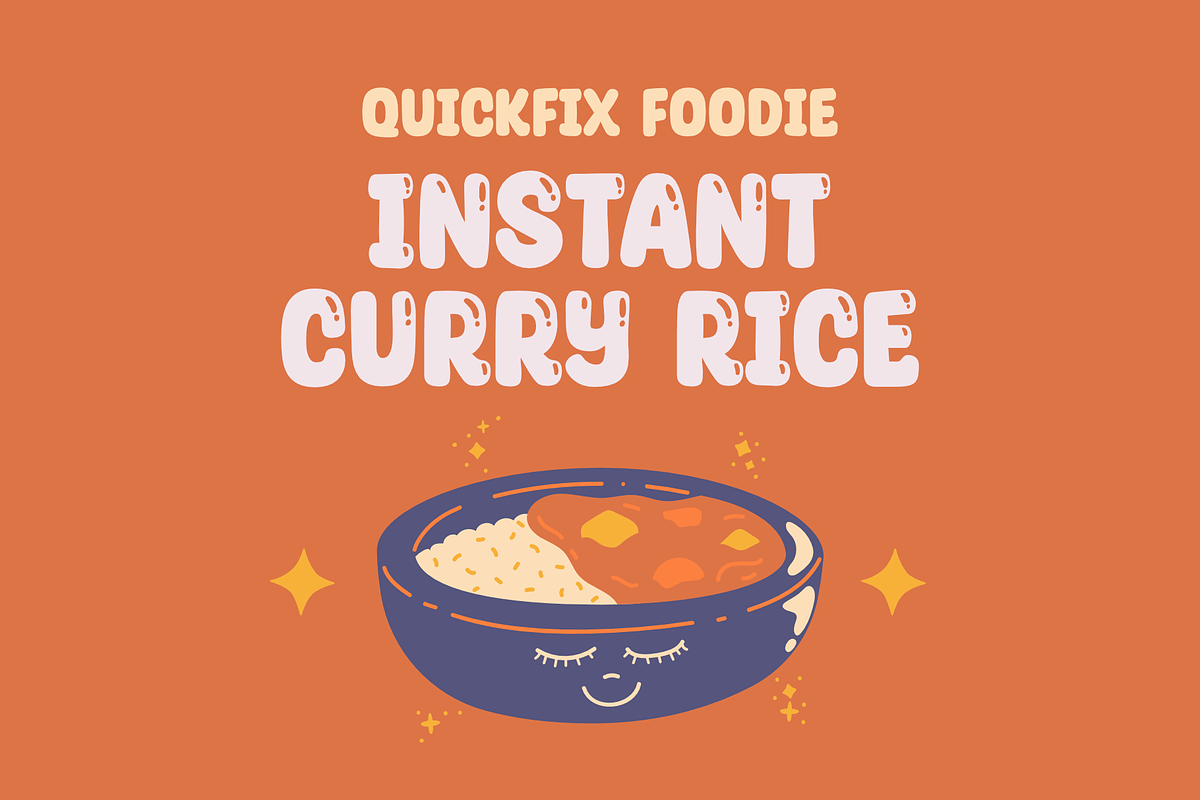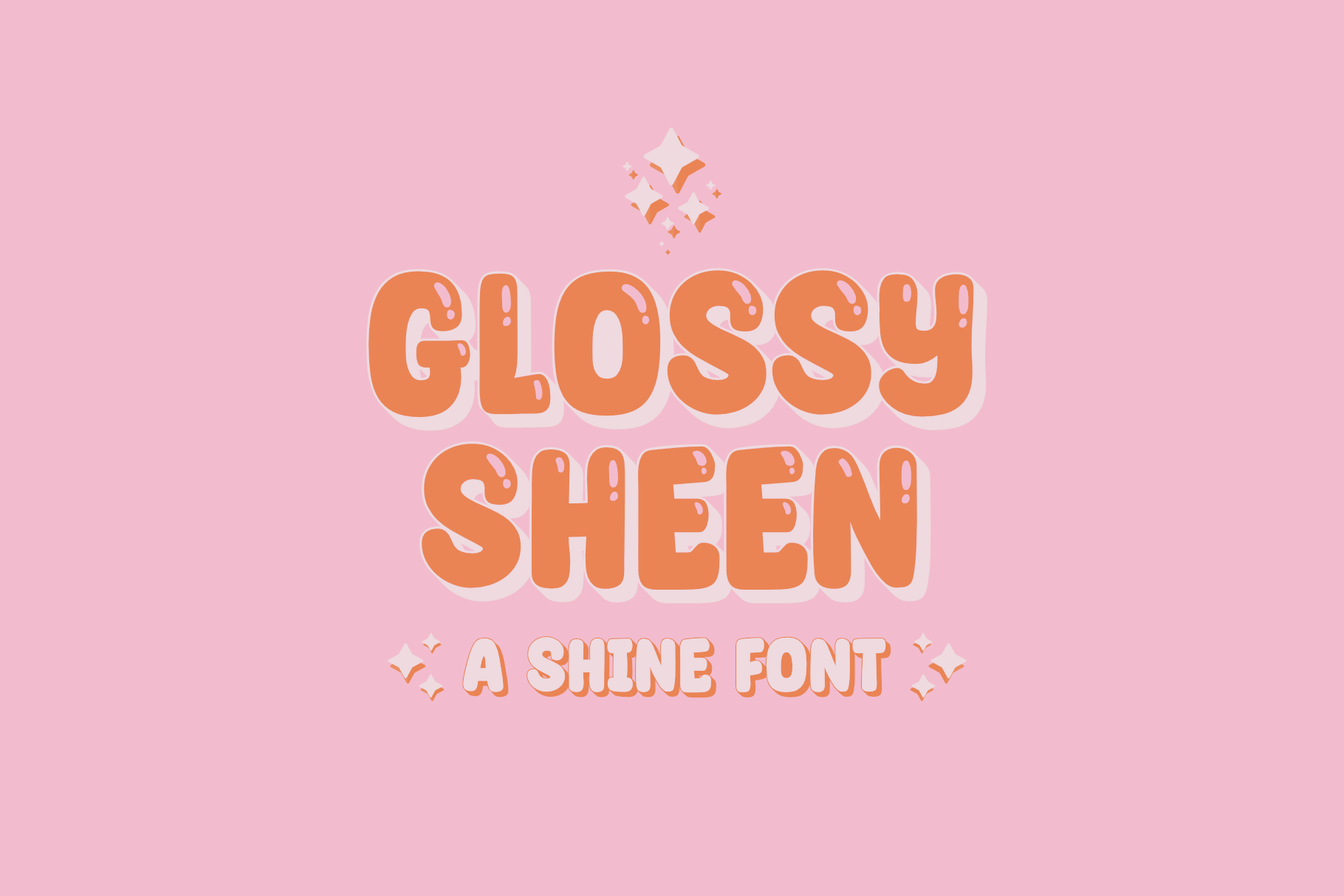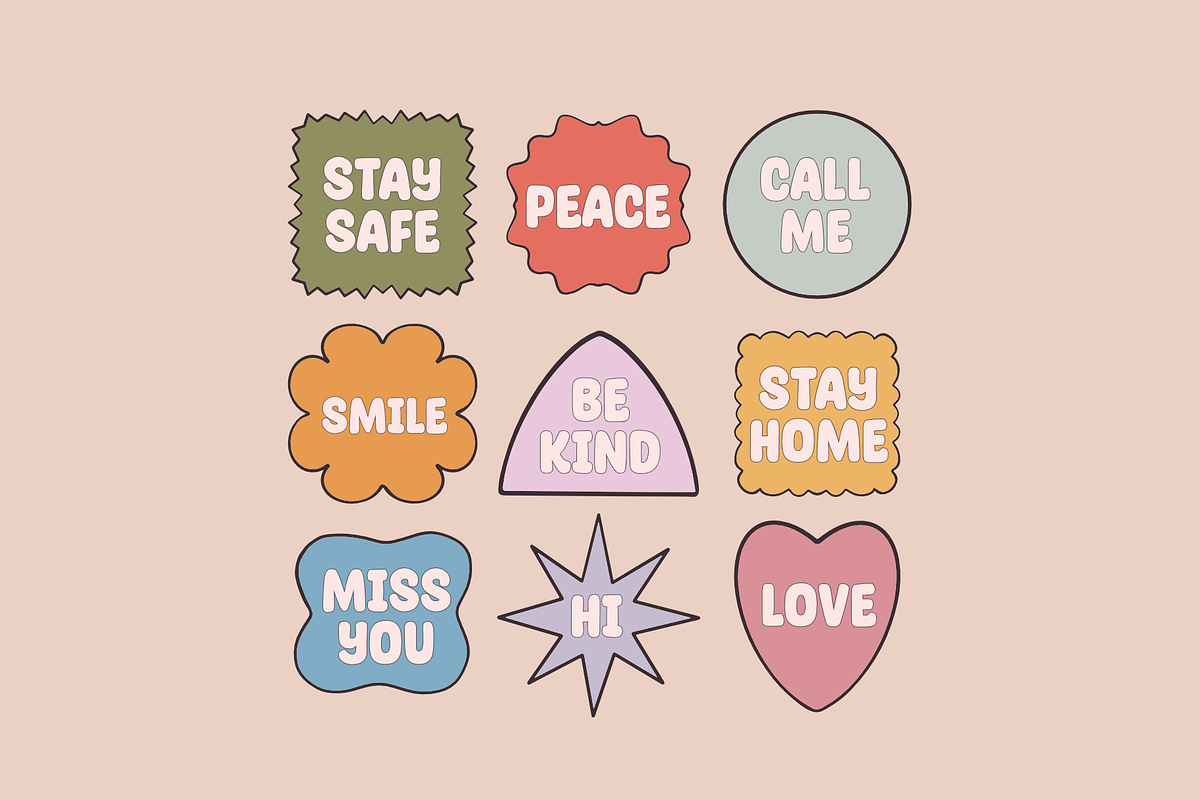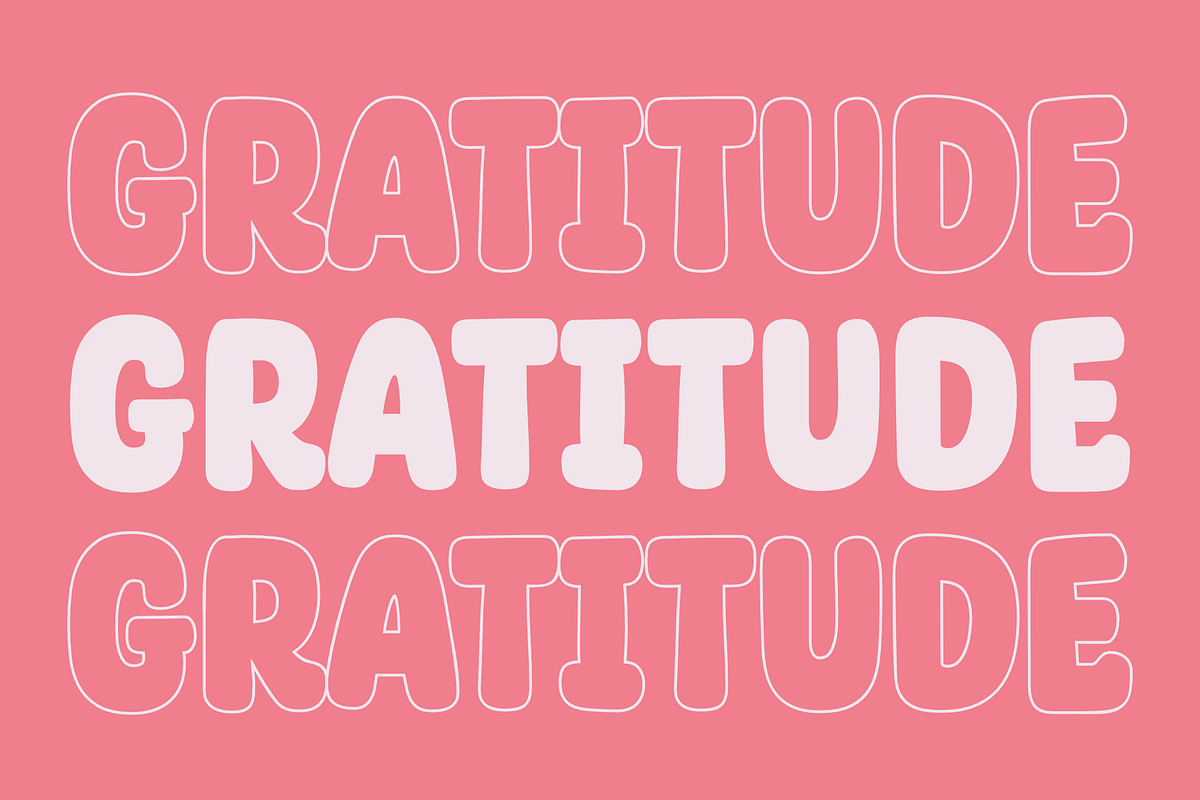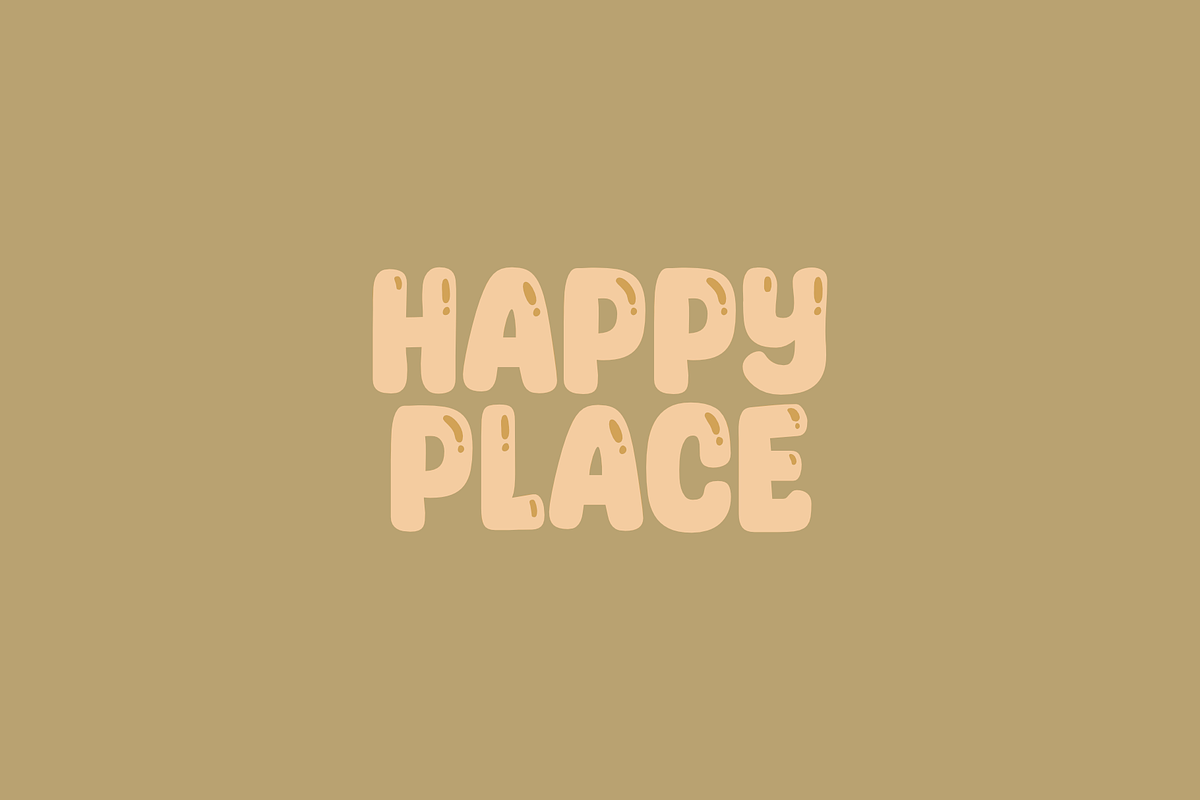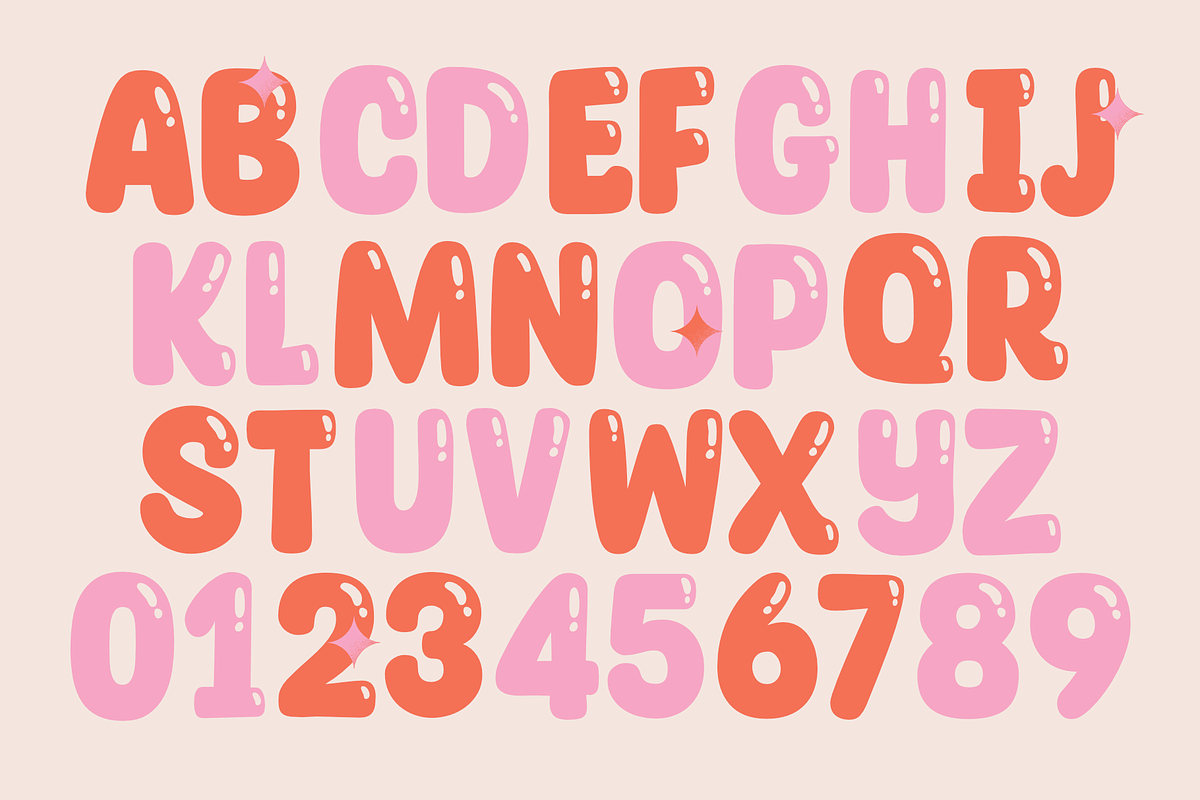
Glossy Sheen - a Shine Layered Font
Glossy Sheen is a shine layered font. A fun thick font with 4 layers of fonts to choose from! There are shine, shadow and outline that you can pick.
This font is perfect for t-shirt, packaging, branding, posters, greeting cards, quotes and so much more.